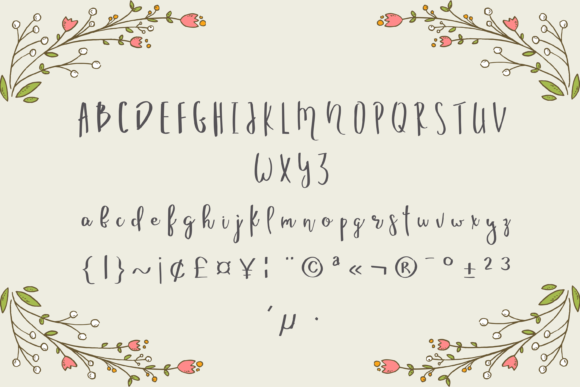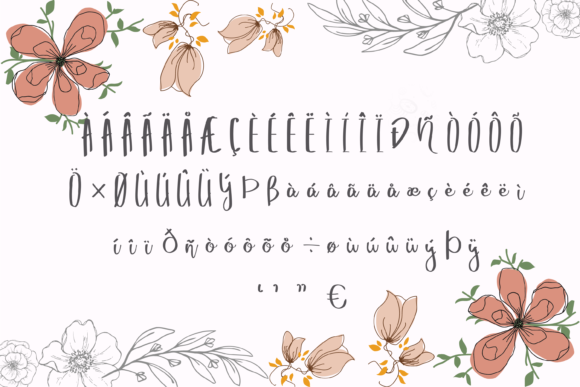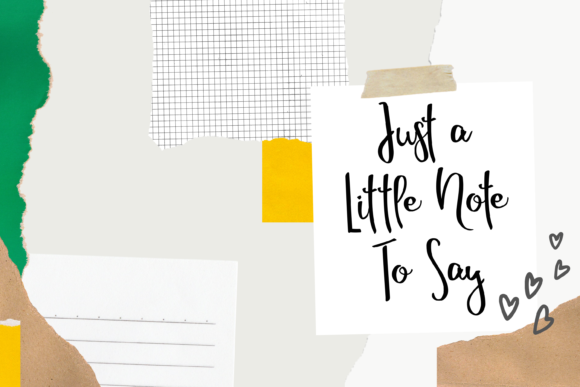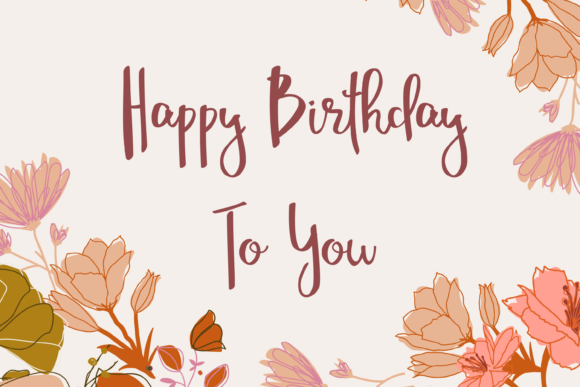
Cilok Original Font: Elevate Your Designs with Elegance and Charm
In the world of typography, a font can make or break a design. For crafty enthusiasts, designers, and creative professionals, finding the perfect font that adds a touch of elegance and whimsy can be a daunting task. That’s where Cilok Original Font comes in – a beautiful, handwritten font that is sure to captivate your audience with its sweet and delicate swashes.
What is Cilok Original Font?
Cilok Original Font is a stunning, elegant, and dainty handwritten font that boasts a unique and original look. Its intricate swashes and flourishes add a touch of sophistication and charm, making it perfect for a wide range of design projects. Whether you’re working on letterheads, titles, stationery, or any other creative endeavor, Cilok Original Font is sure to impress.
Key Features of Cilok Original Font
- Elegant and Dainty: Cilok Original Font features a delicate and refined design that exudes elegance and poise.
- Sweet and Delicate Swashes: The font’s intricate swashes and flourishes add a touch of whimsy and charm, making it perfect for designs that require a personal touch.
- Handwritten: Cilok Original Font is a handwritten font that boasts a unique and authentic look, perfect for designs that require a personal and human touch.
- Original Look: The font’s original design makes it stand out from other fonts, ensuring that your designs will be noticed and remembered.
Perfect for Crafty Ideas
Cilok Original Font is perfect for crafty enthusiasts, designers, and creative professionals who are looking for a font that can elevate their designs. Whether you’re working on:
- Letterheads: Add a touch of elegance and sophistication to your letterheads with Cilok Original Font.
- Titles: Create stunning titles that grab attention with Cilok Original Font’s delicate swashes and flourishes.
- Stationery: Design beautiful stationery that reflects your personality with Cilok Original Font.
- Branding: Use Cilok Original Font to create a unique and memorable brand identity that sets you apart from the competition.
Why Choose Cilok Original Font?
With so many fonts available, why choose Cilok Original Font? Here are just a few reasons:
- Unique Design: Cilok Original Font boasts a unique and original design that will make your designs stand out.
- Elegant and Refined: The font’s elegant and refined design makes it perfect for designs that require a touch of sophistication.
- Versatile: Cilok Original Font can be used for a wide range of design projects, from letterheads to stationery.
- Easy to Read: Despite its intricate swashes and flourishes, Cilok Original Font is easy to read, making it perfect for designs that require a clear and concise message.
In conclusion, Cilok Original Font is a stunning, elegant, and dainty handwritten font that is perfect for crafty enthusiasts, designers, and creative professionals. Its unique design, delicate swashes, and flourishes make it perfect for a wide range of design projects, from letterheads to stationery. Whether you’re looking to add a touch of elegance and sophistication to your designs or create a unique and memorable brand identity, Cilok Original Font is the perfect choice.